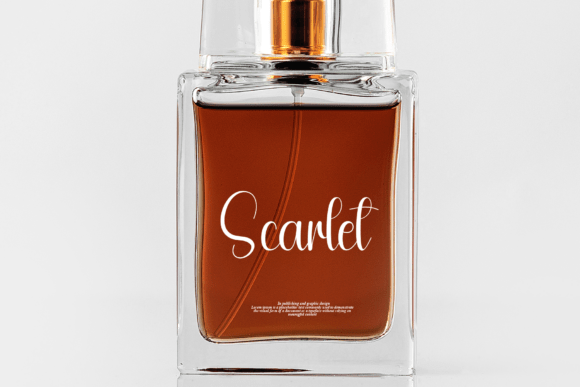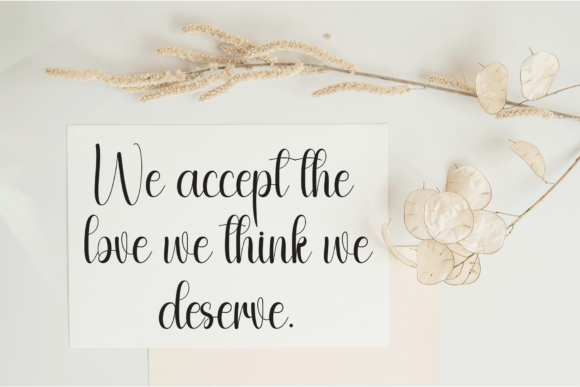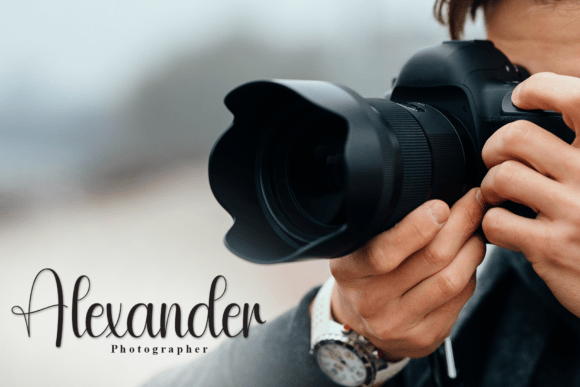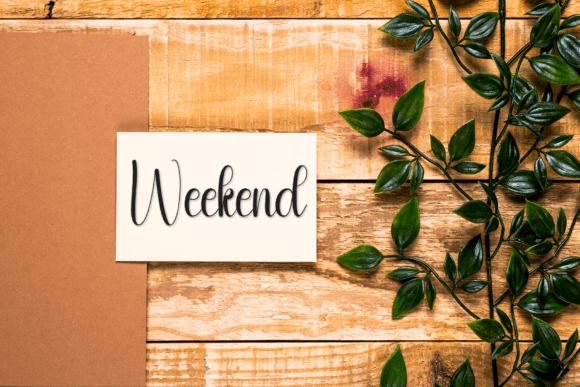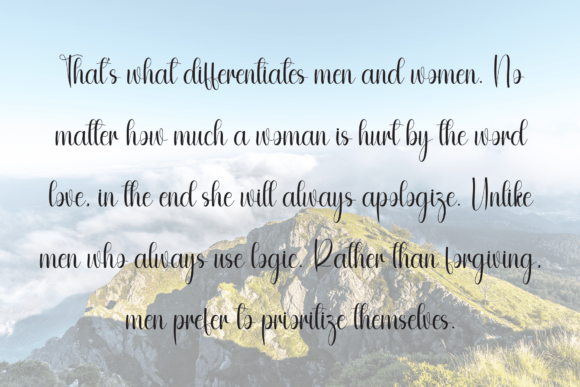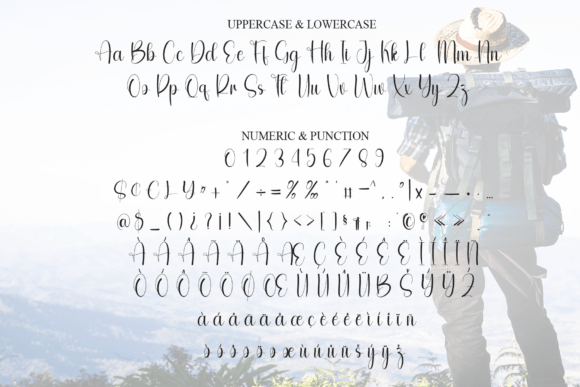
The Adventure Font: A Stylish Handwritten Script to Elevate Your Designs
Have you ever been in the middle of working on a project, and suddenly, you’re stuck on finding the perfect font? I recall a recent experience where a client asked for a font that was both elegant and playful for their wedding invitation suite. After scouring through numerous font options, I stumbled upon the Adventure font, which turned out to be the perfect fit. In this article, we’ll dive into the world of Adventure, a stylish handwritten script font that’s sure to capture your heart.
A Personal Review: What I Love About Adventure Font
Here’s what makes Adventure a standout font:
• ✨ Elegant and playful strokes that add a personal touch to any project
• ✅ Flowing curves and natural rhythm that create a sense of movement
• 💫 Perfect for invitations, branding, and social media content
• 👍 Highly legible, even at smaller font sizes
While Adventure is an excellent font, there are a few things to keep in mind:
• ⚠️ Some characters may require manual kerning for optimal spacing
• 🤔 Limited availability of certain OpenType features in certain software
3. Experiment with the font’s OpenType features, such as ligatures and stylistic alternates, to add visual interest
Adventure was designed by a talented typographer who drew inspiration from the world of handwritten scripts. With a passion for elegant and playful letterforms, the designer aimed to create a font that would capture the essence of adventure and freedom. The result is a font that’s both refined and whimsical, perfect for a wide range of design projects.
Q: What type of projects is Adventure best suited for?
A: Adventure is a versatile font that’s suitable for a wide range of projects, including invitations, branding, social media content, and more.
Q: Is Adventure a difficult font to read?
A: No, Adventure is a highly legible font, even at smaller font sizes. Its flowing curves and natural rhythm make it easy to read and understand.